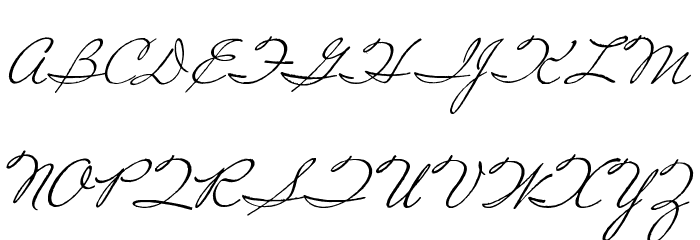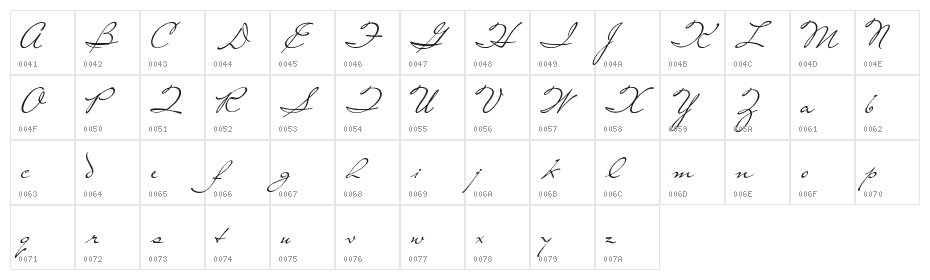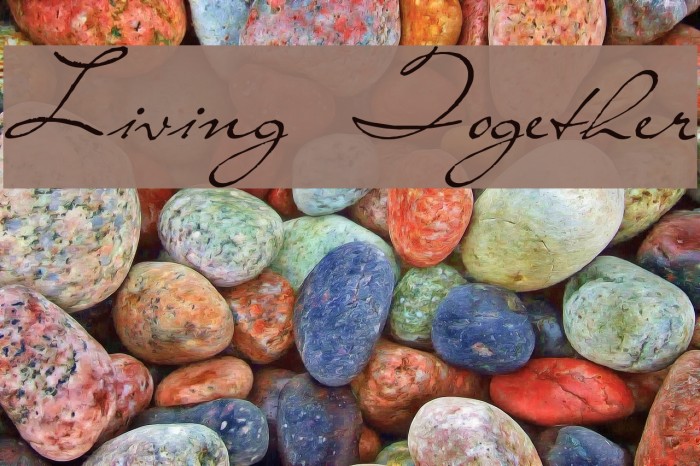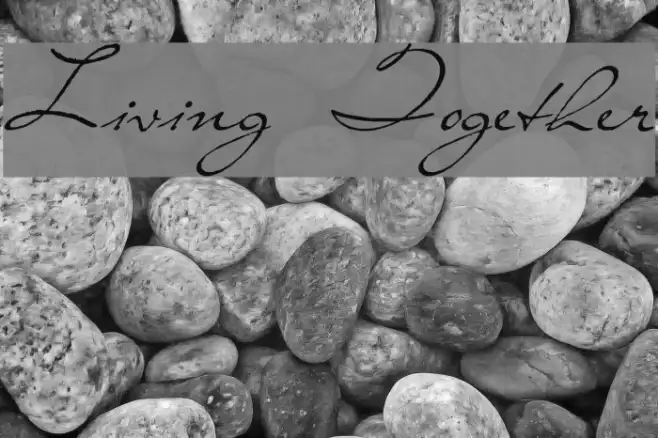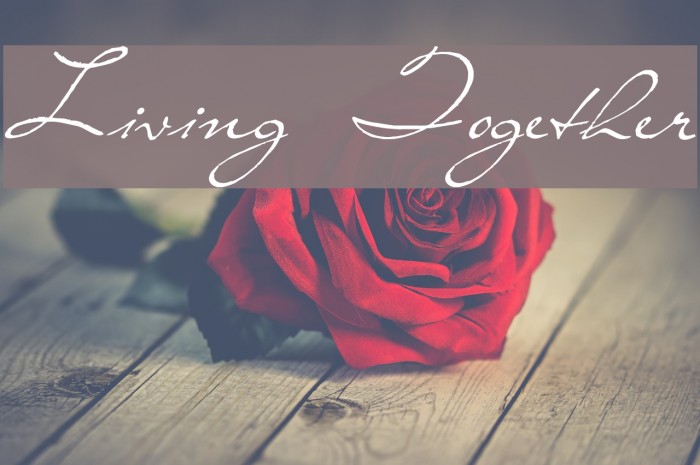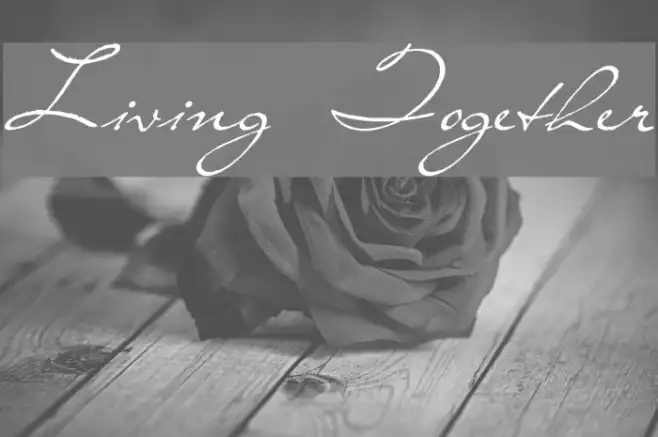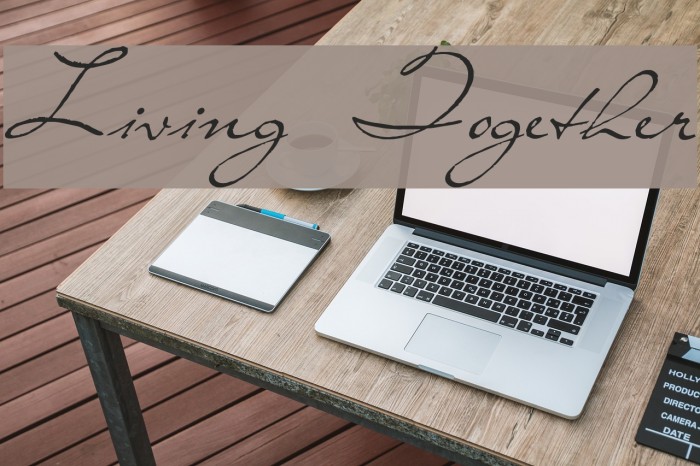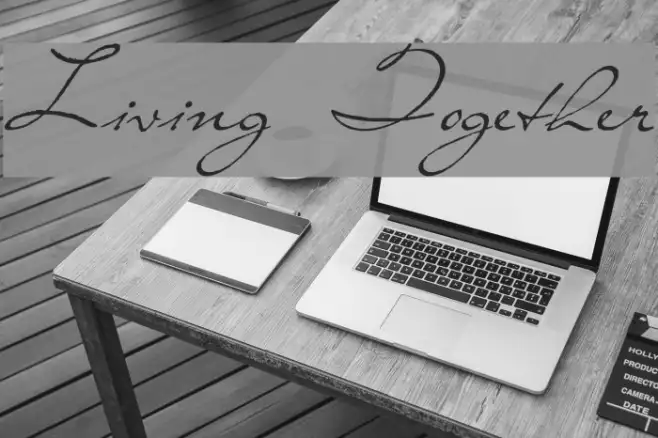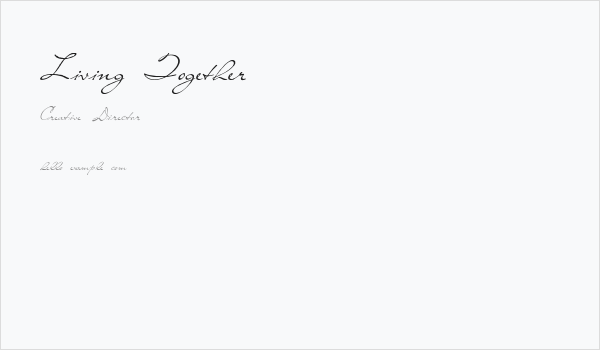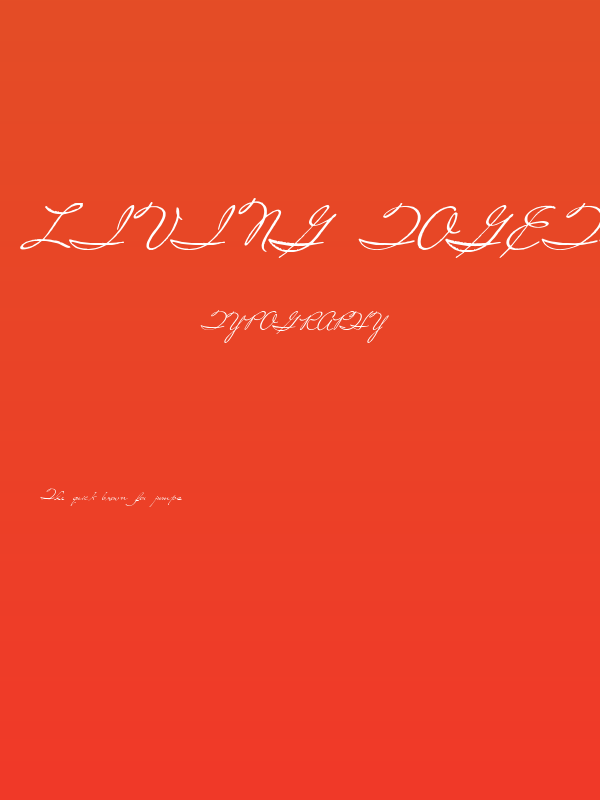
Living Together Font
Living Together Description
This elegant script font features flowing, interconnected letters that mimic the fluidity of cursive handwriting. The uppercase letters are characterized by their tall, slender forms with graceful loops and swirls, while the lowercase letters maintain a consistent rhythm with delicate curves and subtle flourishes. The font exudes a sense of sophistication and charm, making it ideal for formal invitations, elegant branding, and artistic projects. Its intricate design requires careful attention to spacing, ensuring that each letter seamlessly connects to the next, creating a harmonious and visually pleasing text flow.
| Use Case | Invitations, Branding, Artistic projects |
| Proposed Projects | Ideal for wedding invitations, elegant branding, artistic projects, and formal stationery. |